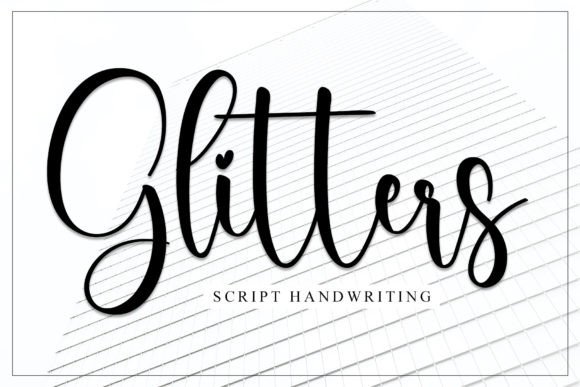
Venture into a world of captivating allure with Glitters Font, a script font family that ignites the spirit of Christmas cheer. Inspired by the timeless elegance of classic calligraphy, Glitters Font brings a touch of festive magic to your creative endeavors. With its meticulously crafted characters, this font exudes an aura of sophistication that elevates your designs to new heights.
Indulge in the visual symphony of Glitters Font, where each letter dances across the page with grace and fluidity. The carefully balanced strokes and varied letterforms create a harmonious composition that captures the essence of the holiday season. Whether you're designing Christmas cards, festive invitations, or whimsical social media posts, Glitters Font adds a touch of enchantment that leaves a lasting impression.
Immerse yourself in the boundless creativity that Glitters Font unlocks. Its versatility knows no bounds, making it the perfect choice for a wide range of projects. From eye-catching logos and branding materials to enchanting invitations and personalized gifts, Glitters Font effortlessly adapts to your artistic vision. Let your imagination soar as you transform ordinary words into extraordinary works of art.
Experience the magic of Glitters Font today and elevate your designs with a touch of Christmas charm. This font is a gift to your creative spirit, allowing you to weave enchanting tales and spread holiday cheer through your visual creations. Join the growing community of designers who have embraced the beauty of Glitters Font and let your imagination dance to the rhythm of the season.